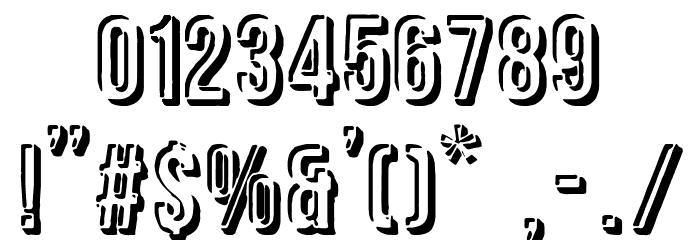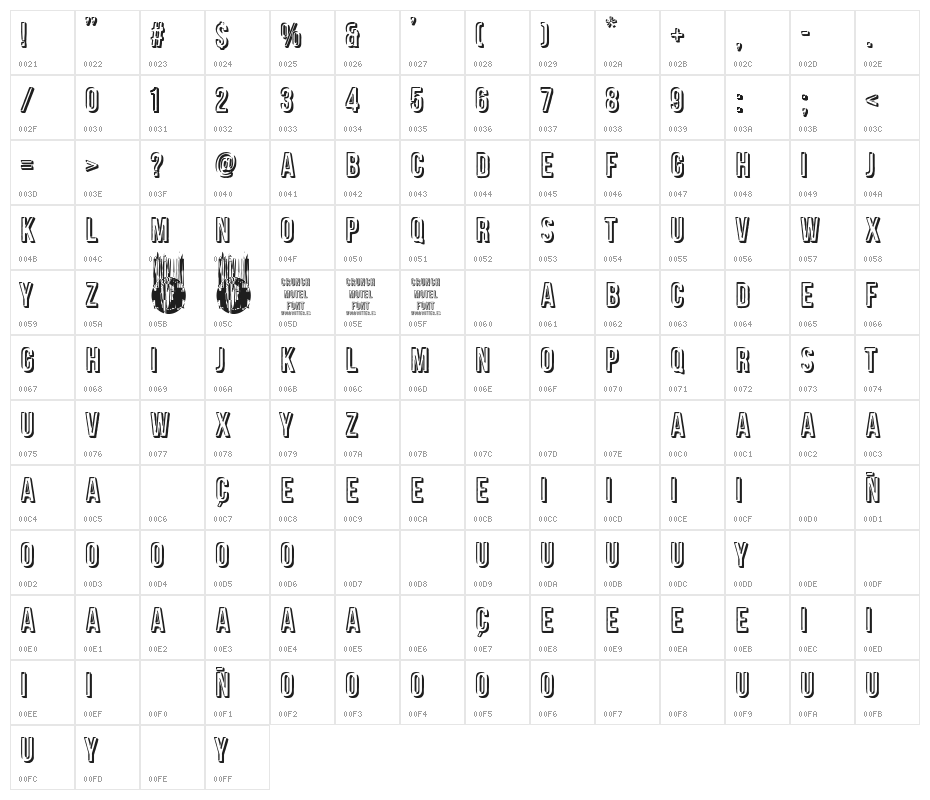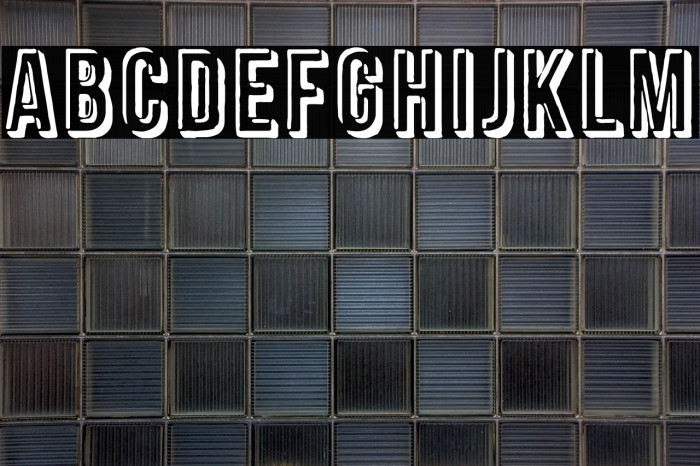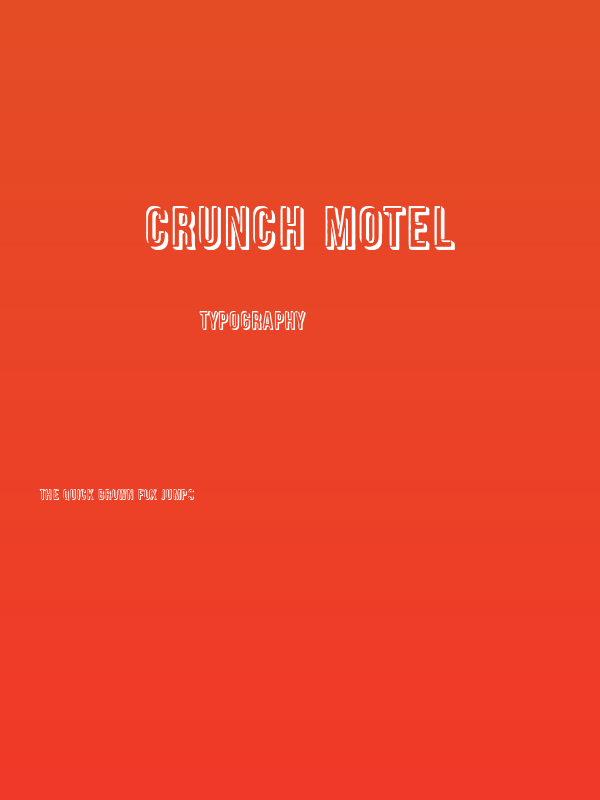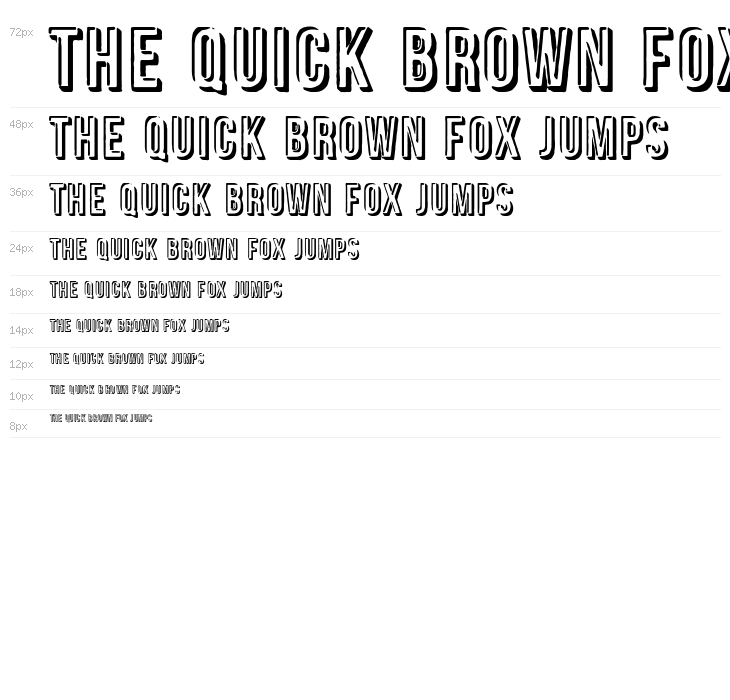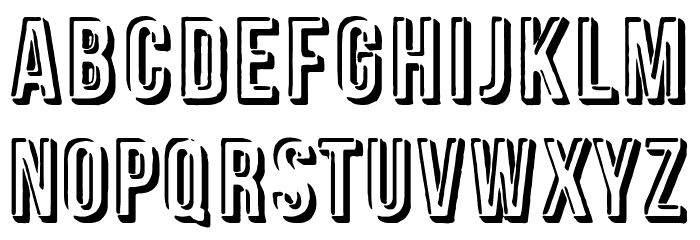
Crunch Motel Font
Crunch Motel Description
This font features a bold, three-dimensional appearance with a shadow effect that gives it a striking and impactful look. The uppercase letters are uniform in height and width, with a blocky, geometric style that conveys strength and stability. The numbers and special characters maintain this consistent design, ensuring a cohesive visual experience. The font's shadow effect adds depth, making it ideal for eye-catching designs. Its boldness and unique style make it suitable for projects that require a strong visual presence.
| Proposed Projects | Ideal for posters, headlines, logos, and any design requiring a strong visual impact. |